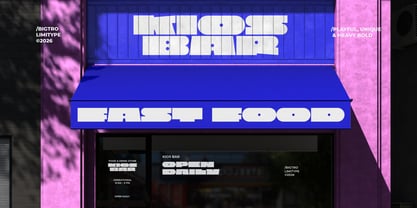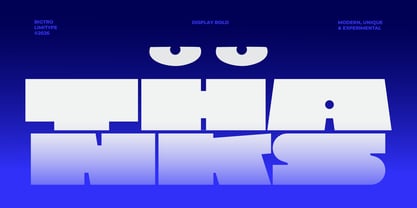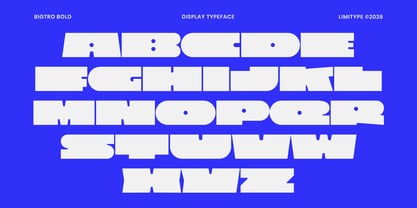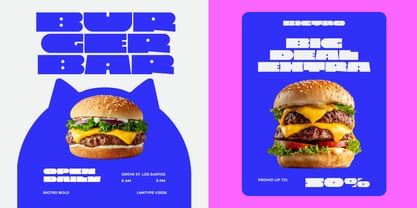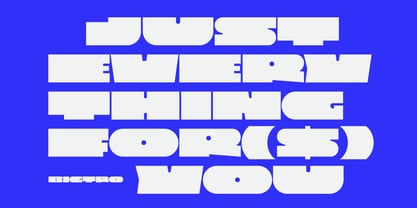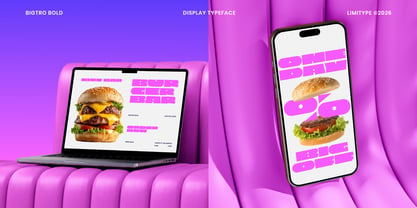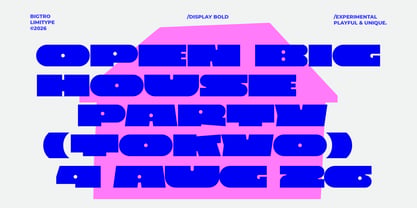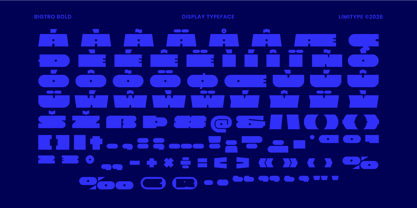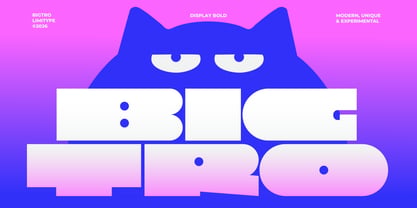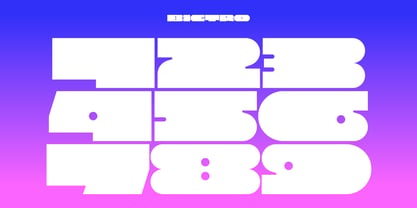
Bigtro
Bigtro is a super heavy display font featuring strong geometric shapes and a playful personality with a retro inspired style. Its oversized letterforms create a bold visual impact while maintaining excellent readability, making every word appear confident and instantly eye catching. Perfect for headlines, logos, branding, packaging, posters, food and beverage designs, social media graphics, and creative editorial projects, Bigtro delivers a cheerful yet bold typographic style that adds a distinctive character and helps every design stand out.
Bigtro available with:
• Allcaps
• Number
• Symbol
• Multilingual